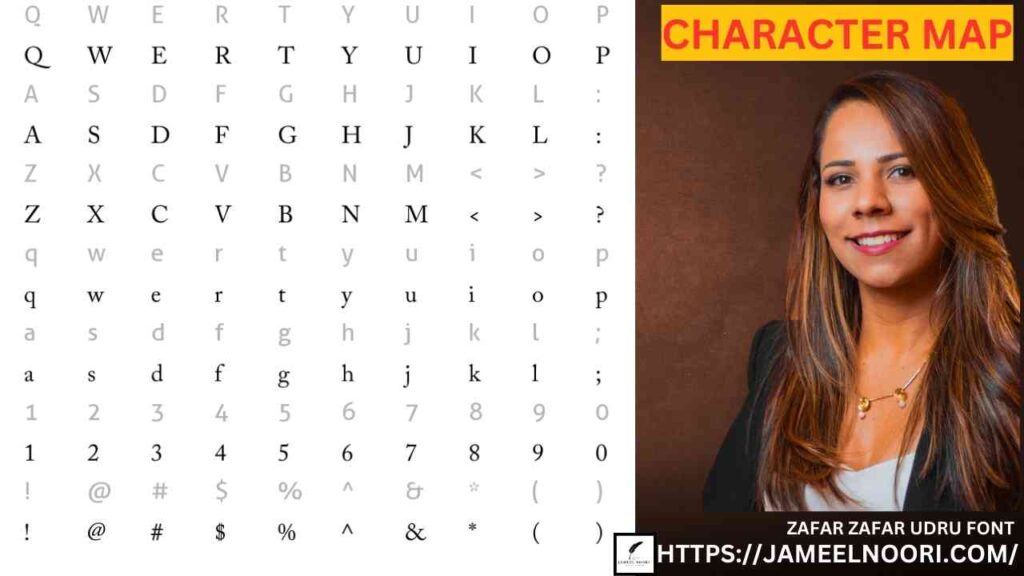
What is Zafar Zafar Urdu Font?
Key Features of Zafar Zafar Urdu Font Font
- Font Name: Zafar Zafar Urdu Font
- Font Style: Zafar
Why Choose Zafar Zafar Urdu Font?
2… Readability and Design Appeal
Zafar Zafar Urdu Font is designed to offer a balance between style and readability… Its distinctive design makes it suitable for a variety of applications,, including:
- Branding and logo design
- Website typography
- Social media graphics
- Printed materials (e…g…,, posters,, brochures,, flyers)
- Urdu content creation
The Zafar Zafar Urdu Font TrueType Font is a stylish and practical choice for digital and print design projects… With its growing popularity,, moderate user rating,, and installable format,, it continues to be a preferred font among graphic designers and content creators… Whether you’re working on branding,, web design,, or print media,, Zafar Zafar Urdu Font can add a distinctive touch to your typography…